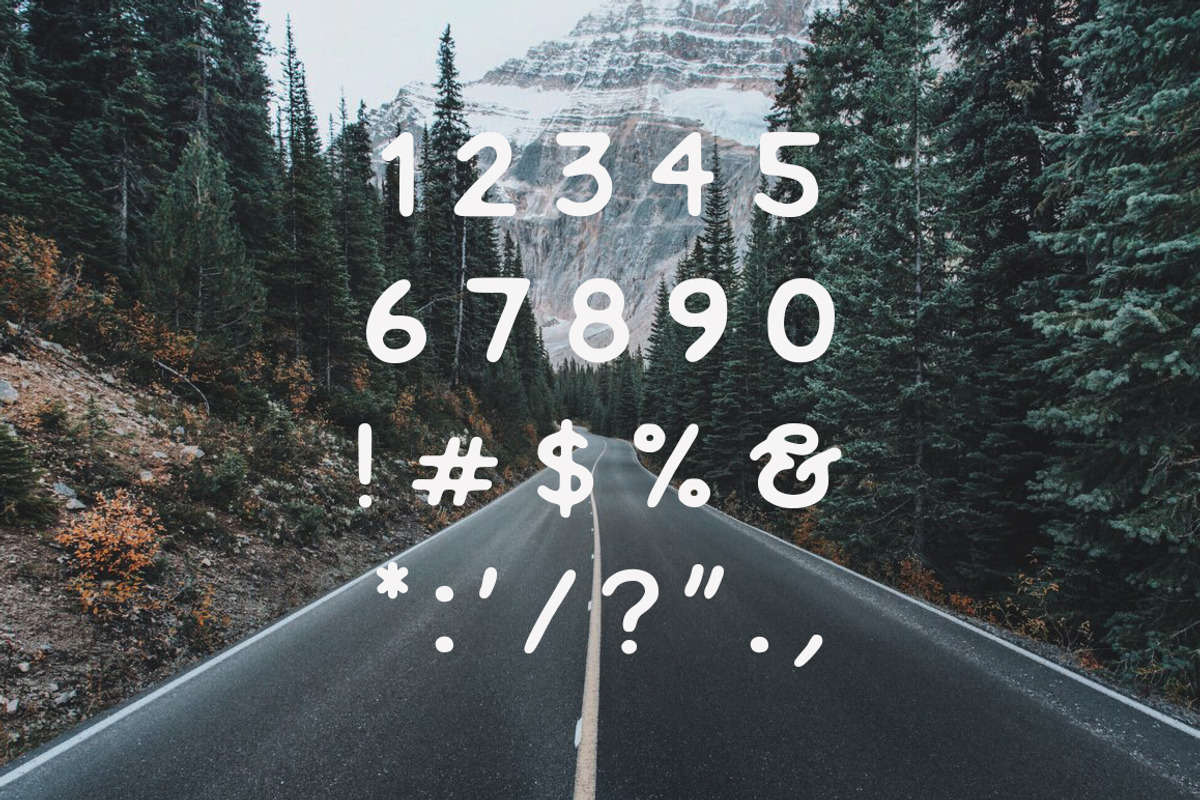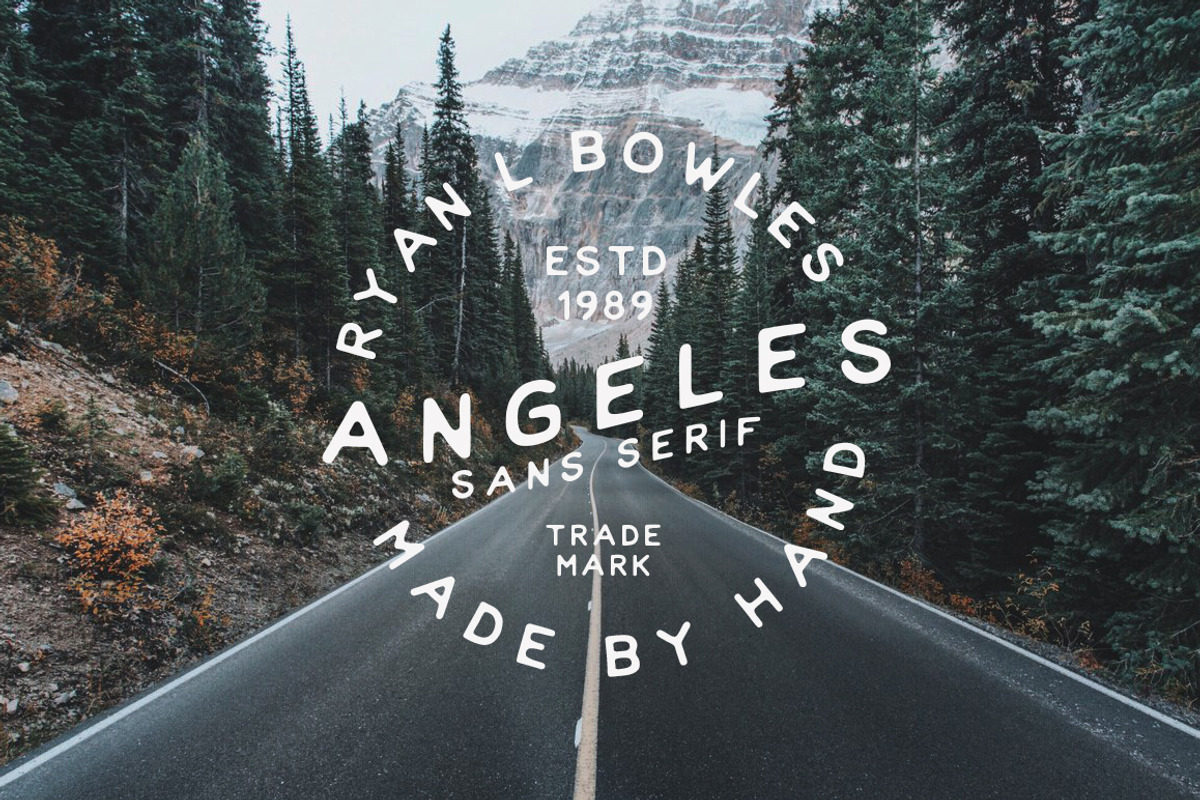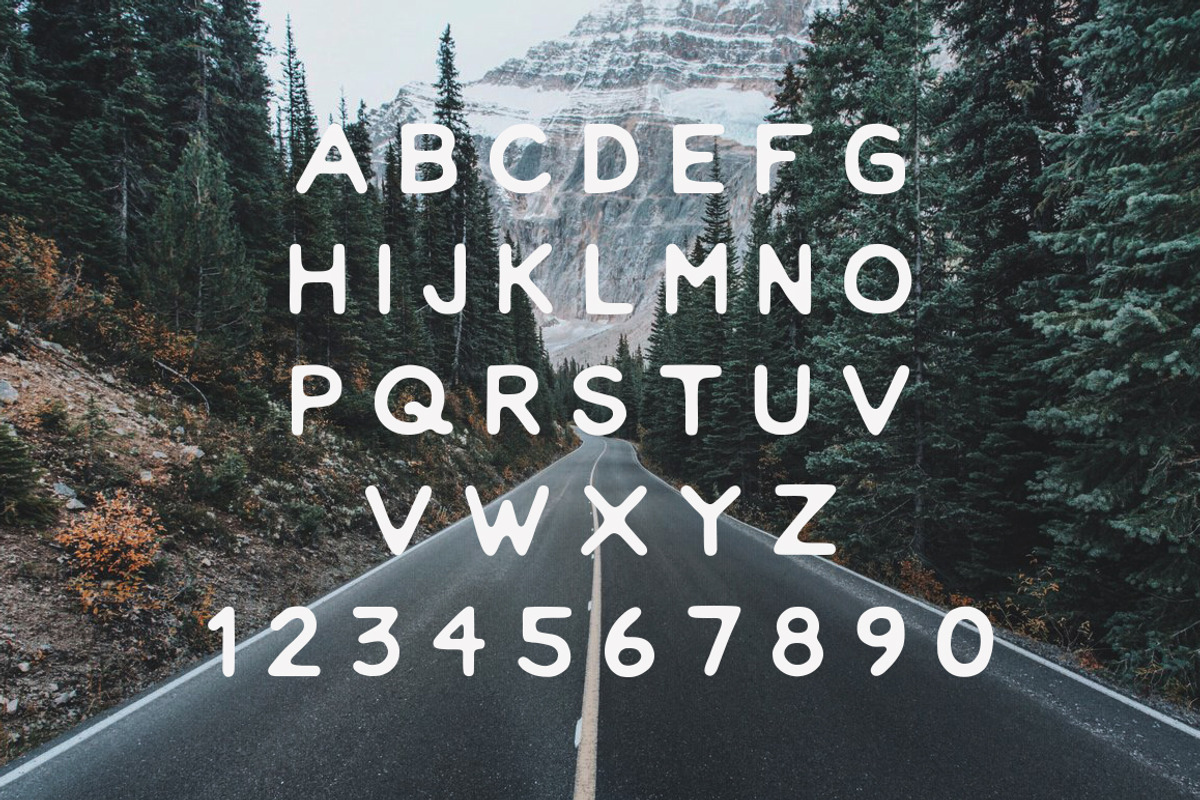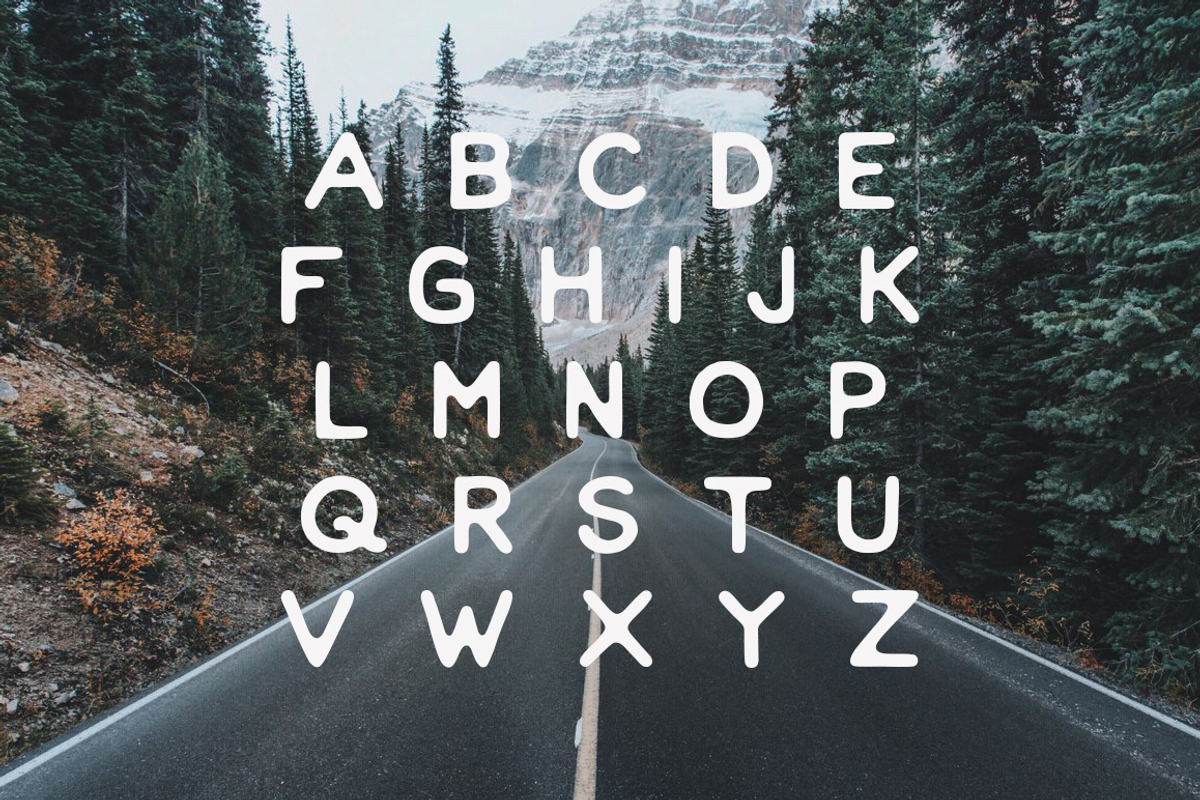
Angeles - Sans Serif Font
Angeles - Sans Serif Font by RyanBowlesDesign is a font selected for branding, posters, packaging, typography.
- Angeles includes uppercase characters, punctuation glyphs and numerals.
Why Angeles - Sans Serif Font is worth a look
Angeles - Sans Serif Font by RyanBowlesDesign fits naturally into Branding, posters, packaging, typography.